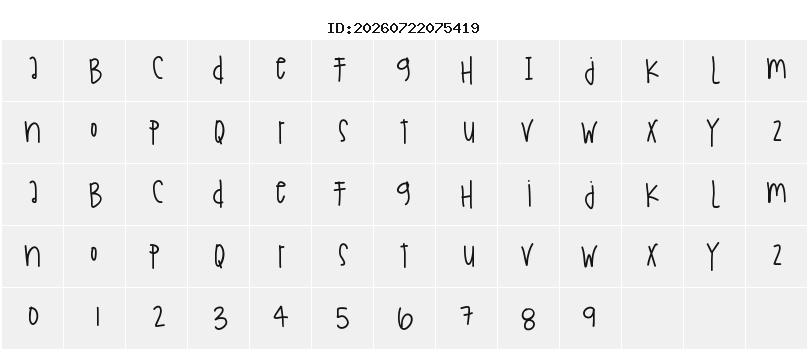
HolidaysAreComing Preview
• Font Name: HolidaysAreComing
• Full Font Name: HolidaysAreComing
About HolidaysAreComing.ttf
HolidaysAreComing.ttf is a modern, elegant sans-serif font designed for ultimate readability and visual harmony. Perfect for branding, headlines, web design, and print materials.